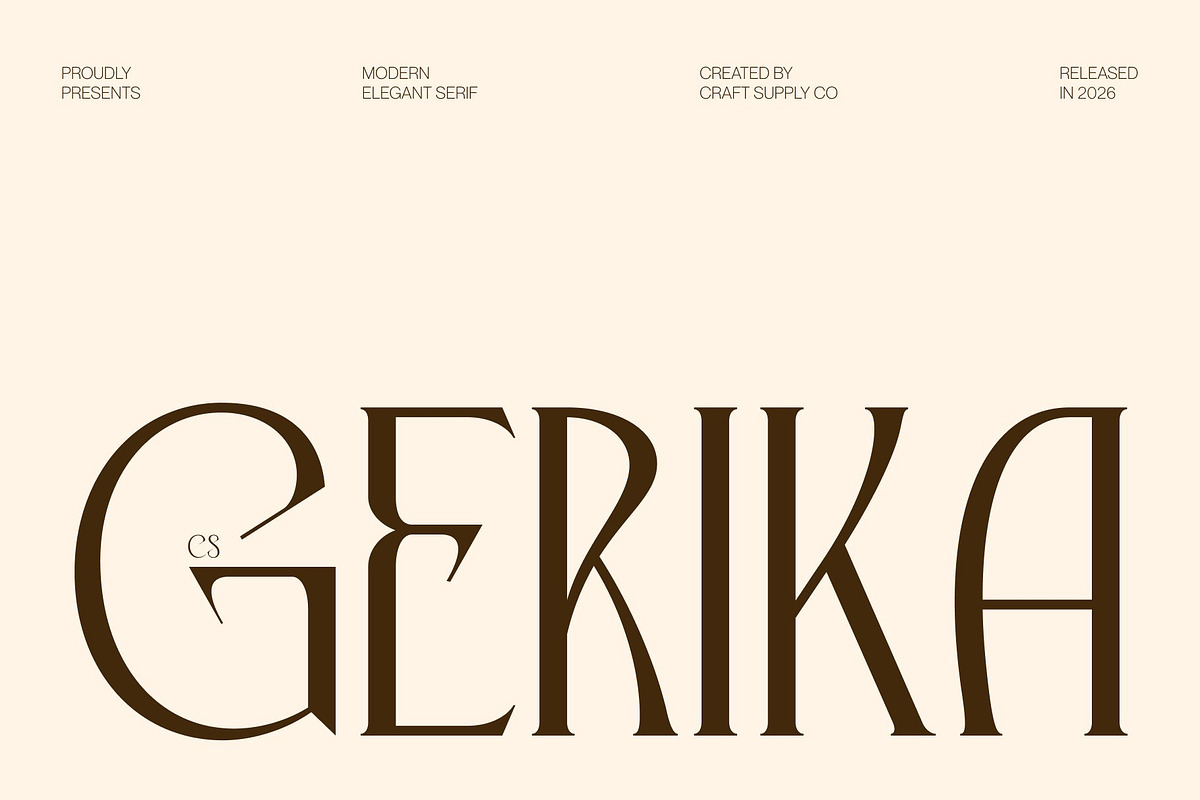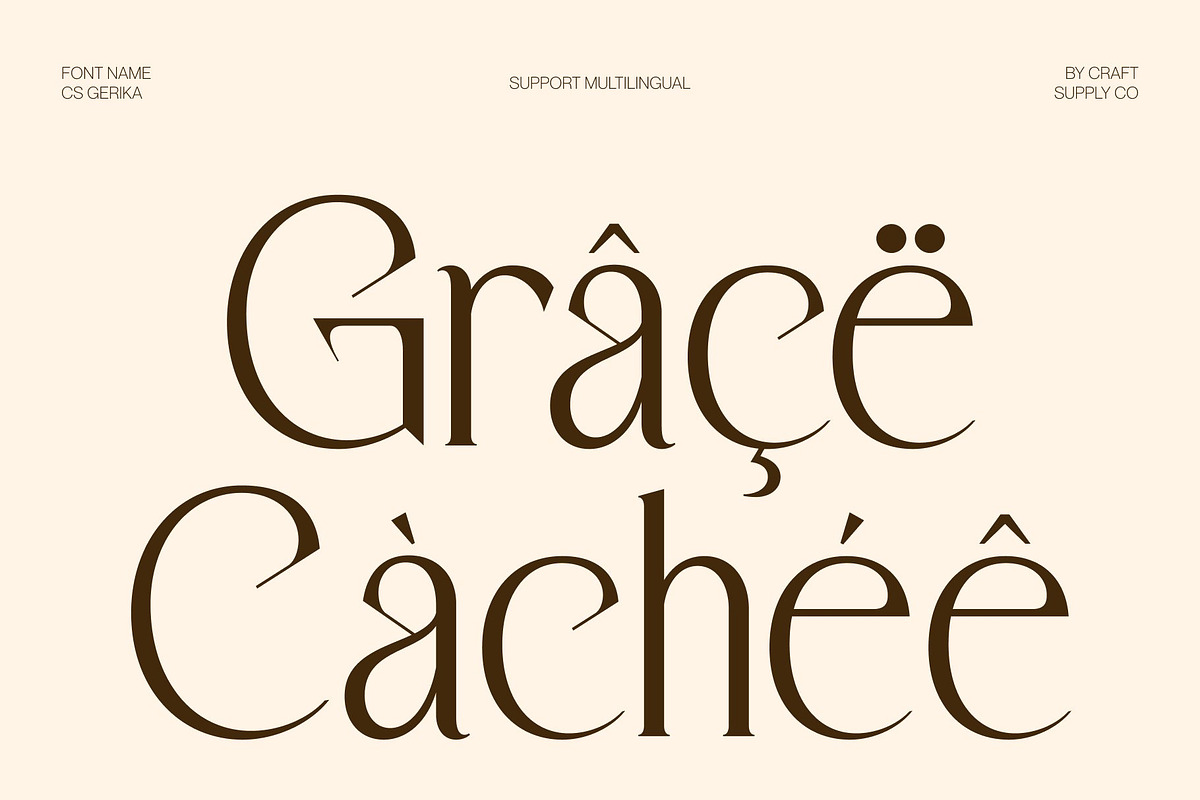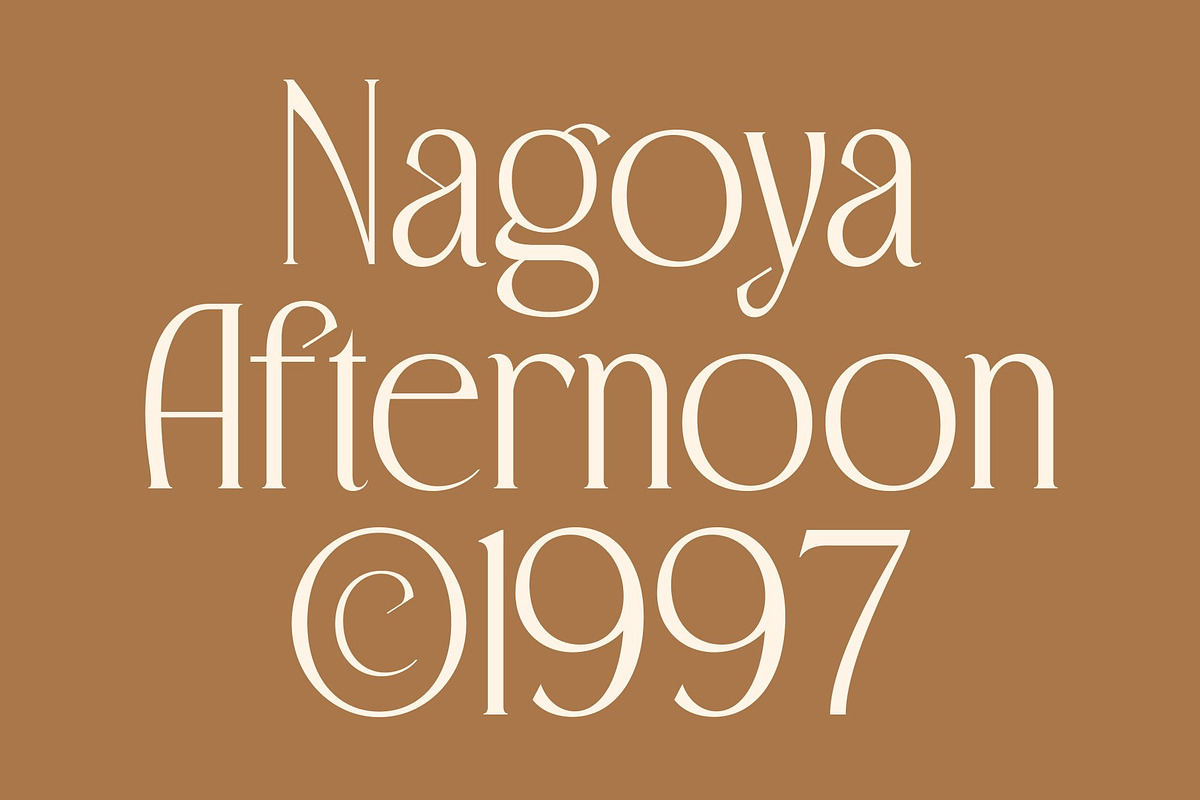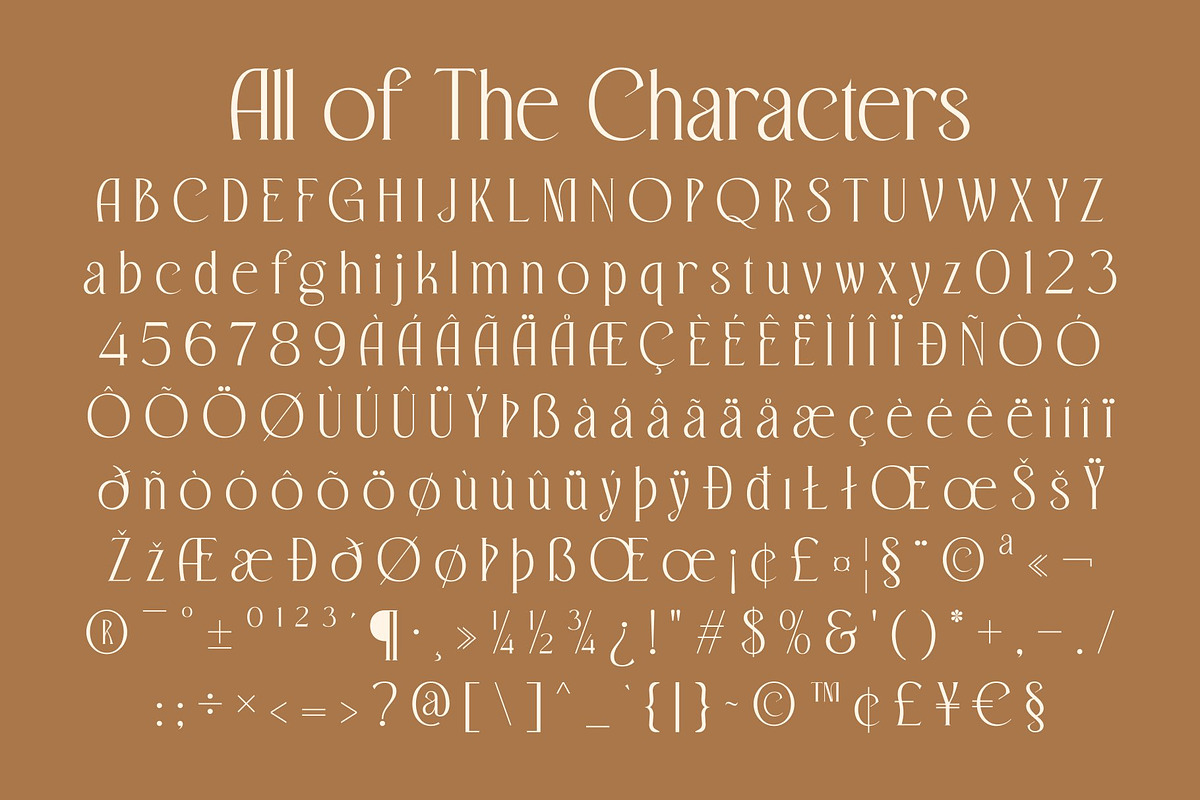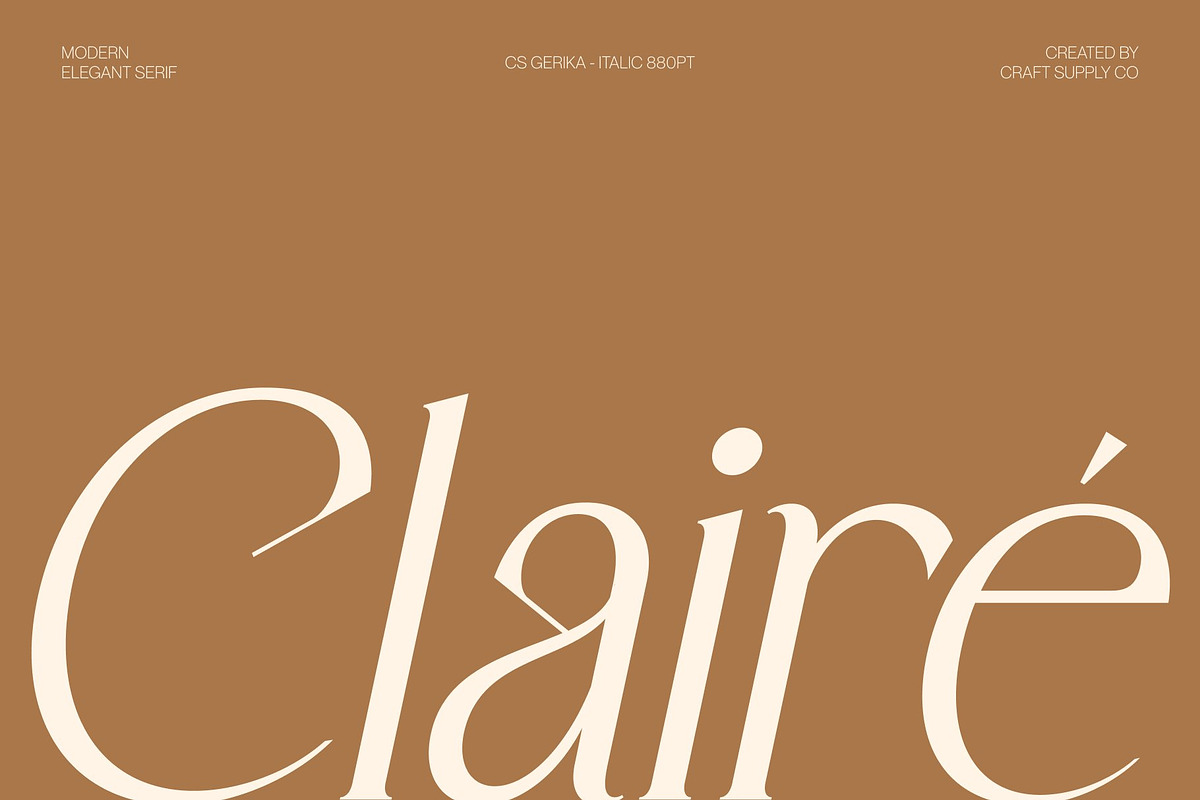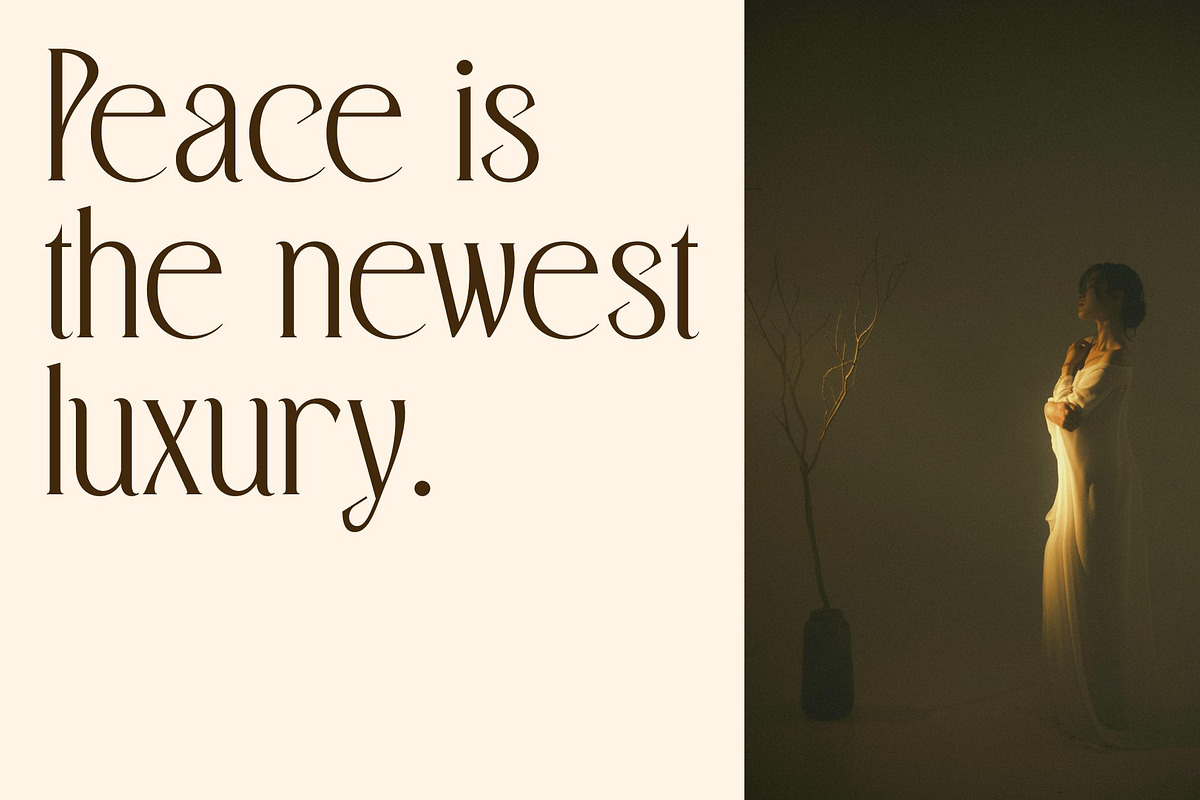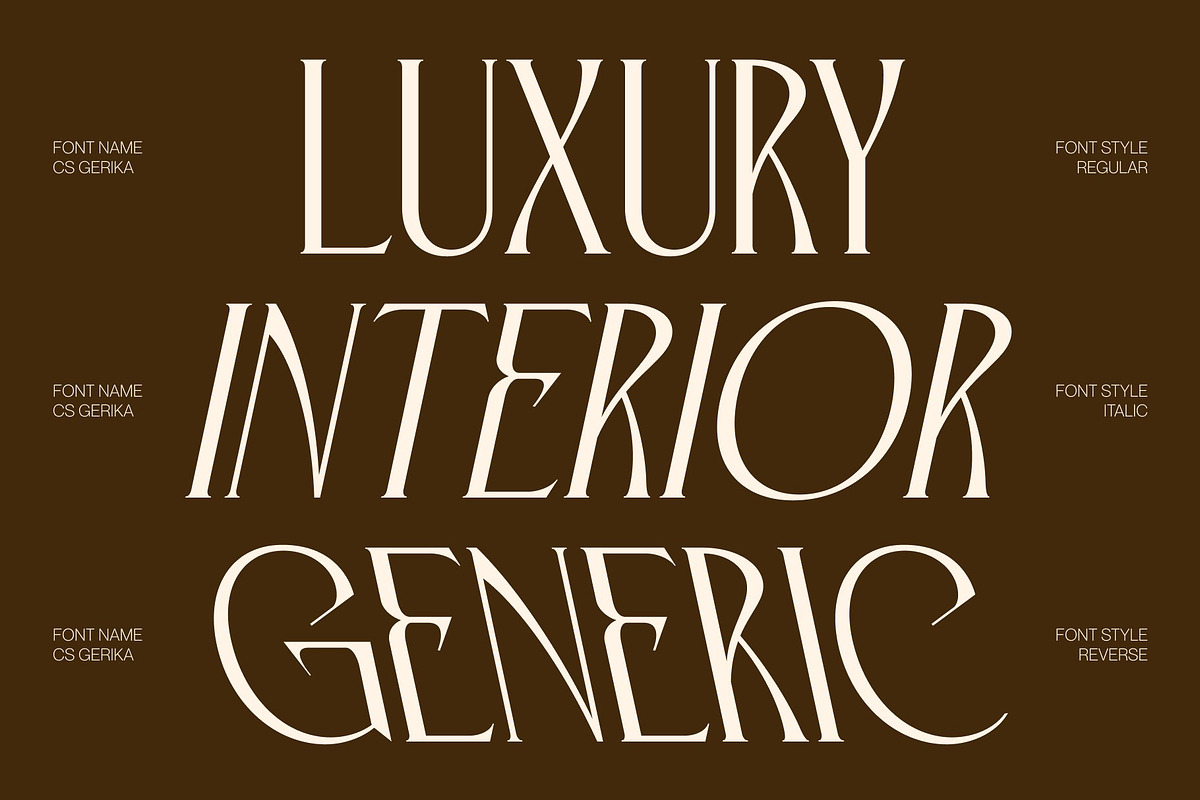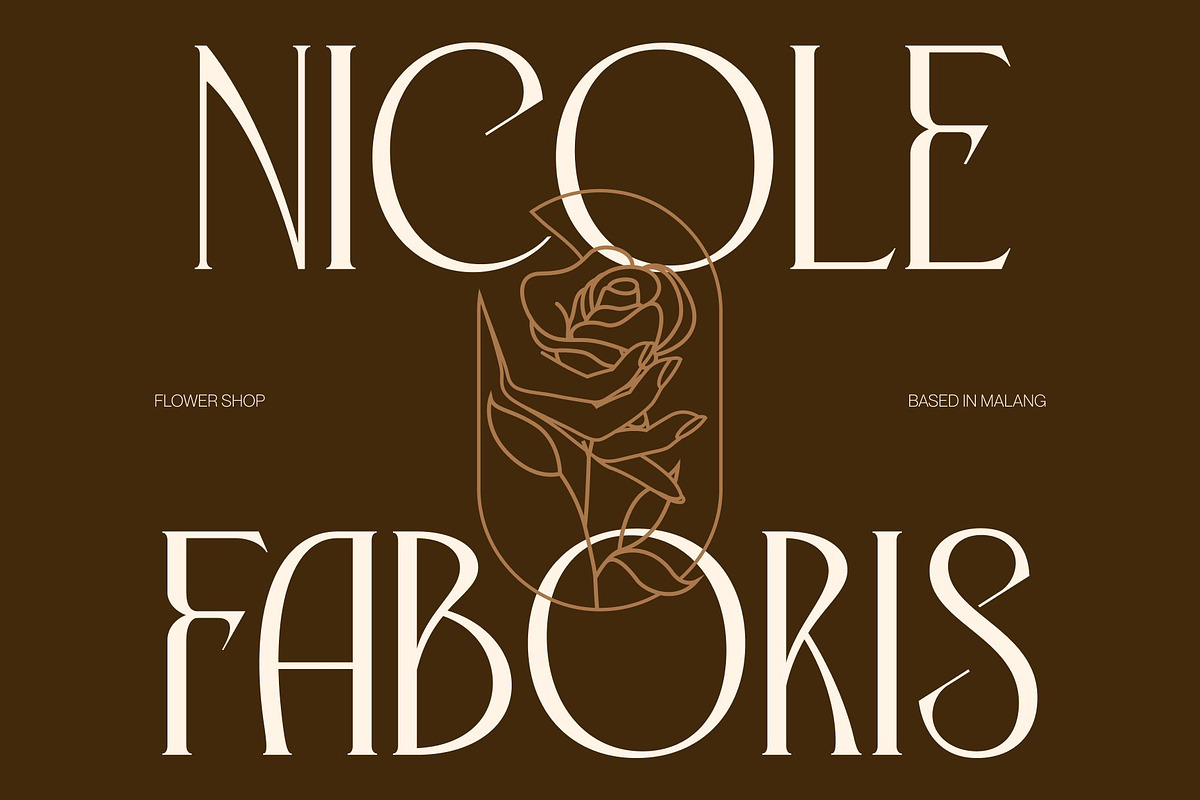
CS Gerika – Modern Serif Font
CS Gerika – Luxury Serif Font with Refined Sophistication
Luxury Serif with Polished Elegance This is a polished and refined luxury serif font designed to embody sophistication and exclusivity. With its graceful proportions and carefully crafted details, this typeface delivers a premium visual presence that feels elegant, timeless, and highly distinguished. It is created for designers who seek typography that communicates prestige and refined beauty.
Refined Details with Sophisticated Character The defining beauty of this font lies in its elegant serif construction and balanced contrast. Smooth curves, delicate terminals, and refined proportions create a harmonious rhythm that enhances readability while maintaining a luxurious appearance. Every letterform is designed to feel graceful and visually captivating.
Exclusive Style with Timeless Appeal This font combines classic serif sophistication with a modern polished finish, resulting in a typeface that feels both timeless and contemporary. Its refined personality makes it perfect for projects that demand a high-end aesthetic, allowing designs to appear stylish, confident, and premium.
Perfect for High-End Branding and Editorial Design From luxury branding and editorial layouts to premium packaging and fashion campaigns, this font offers a versatile typographic solution. Its combination of polished elegance, sophisticated detail, and exclusive style ensures your designs feel luxurious, refined, and visually memorable.
CS Gerika Regular
CS Gerika Italic
CS Gerika Reverse Italic